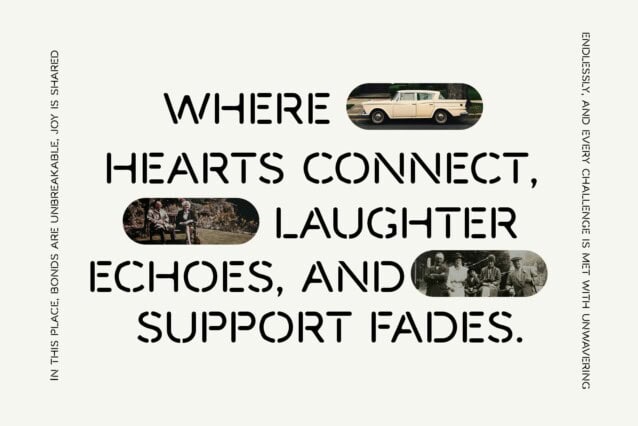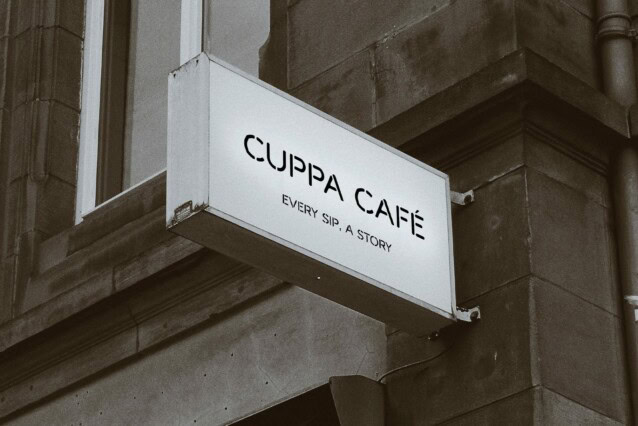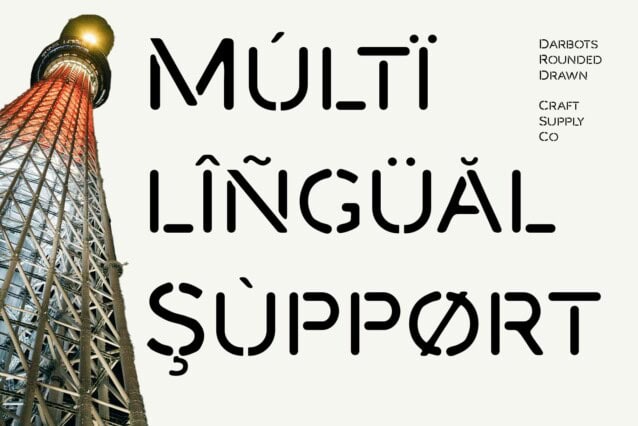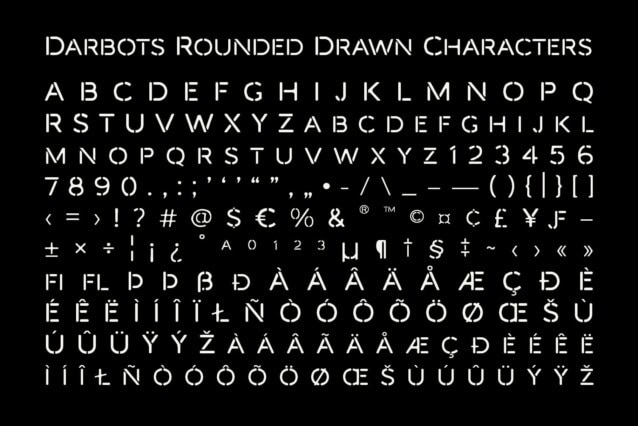
Darbots Rounded Drawn Font
Darbots Rounded Drawn Font is a modern sans-serif font that blends rounded letterforms with bold stencil shapes, creating a unique and contemporary look. The rounded edges offer a friendly and approachable vibe, while the stencil elements inject an industrial and cutting-edge feel. This combination makes it perfect for designs that need to balance modern aesthetics with an inviting and creative atmosphere.